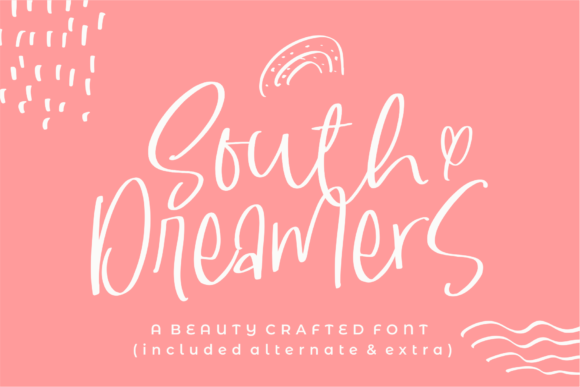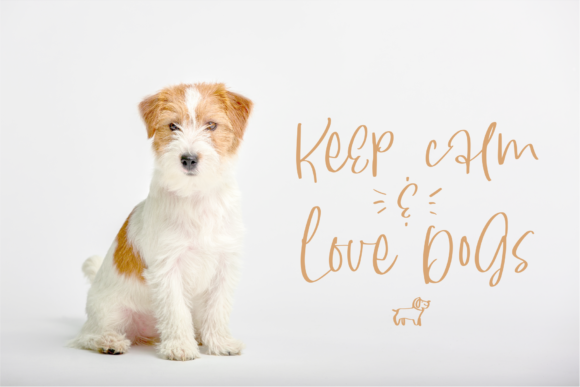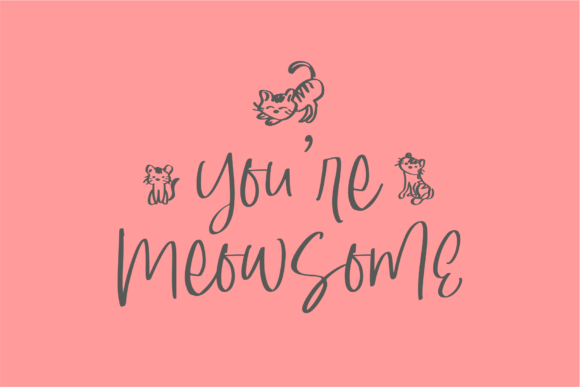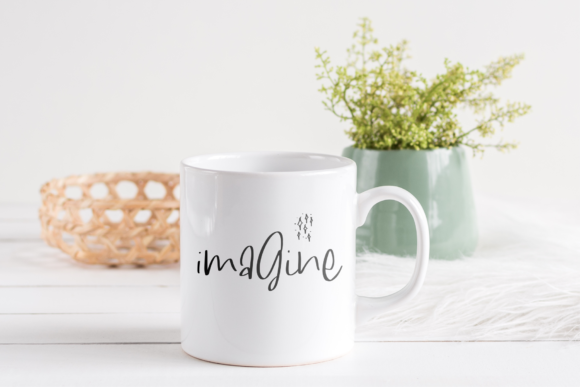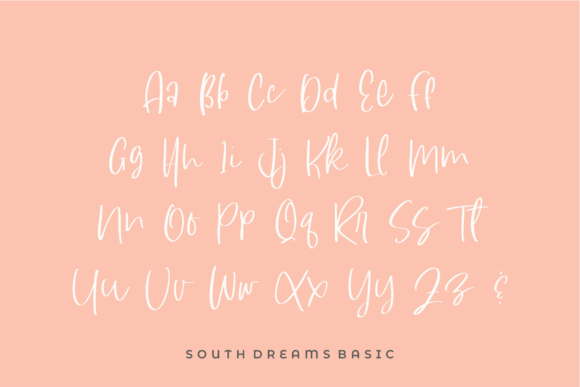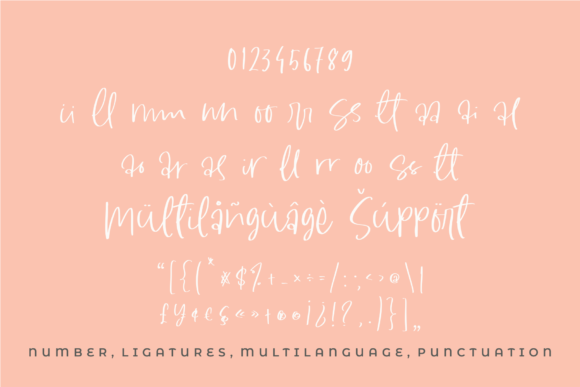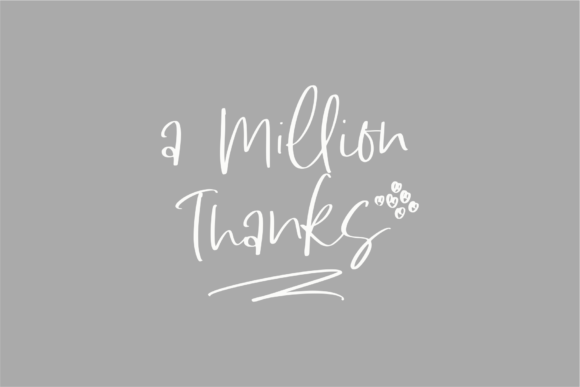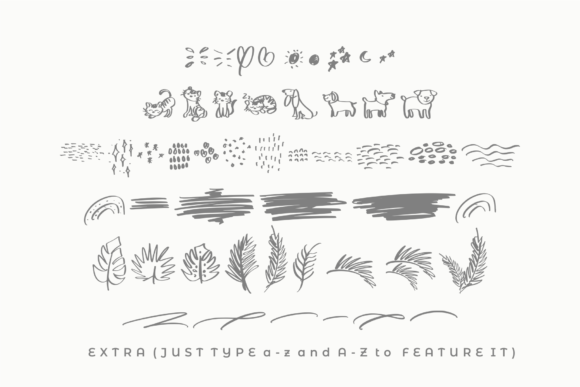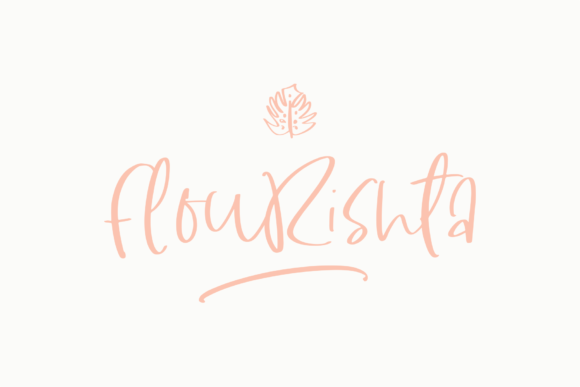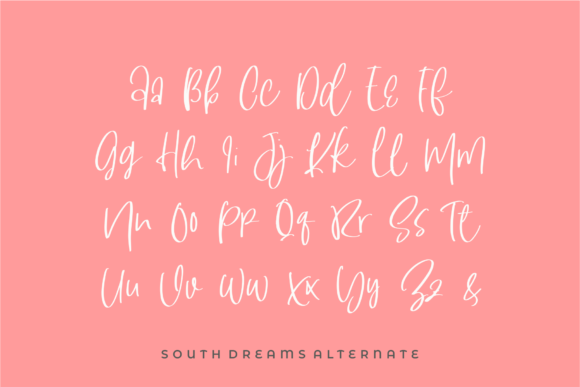
South Dreamers Font
About South Dreamers Font
South Dreamers is an eye-catching yet smooth handwritten font. It is very versatile, looking gorgeous on wedding invitations, thank you cards, quotes, greeting cards, logos, business cards and every other design that needs a handwritten touch.This font is PUA encoded which means you can access all of the glyphs and swashes with ease! It features a varying baseline, smooth lines, gorgeous glyphs and stunning alternates.